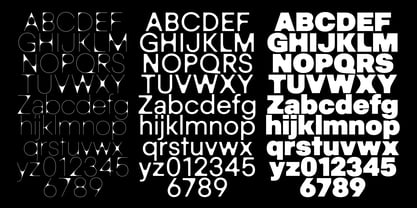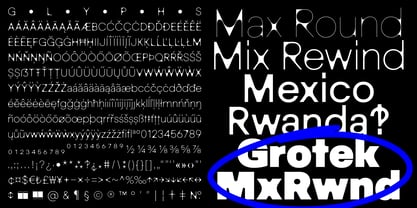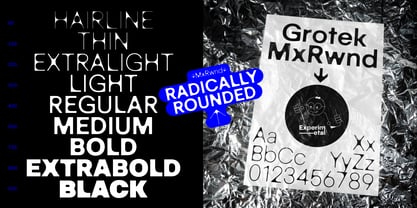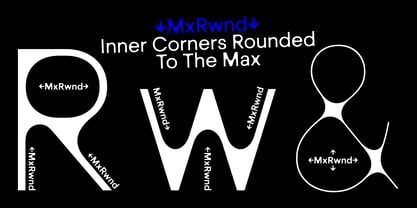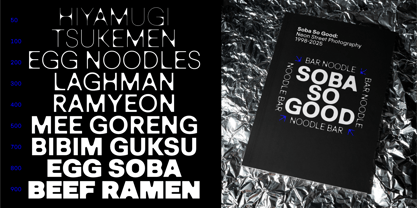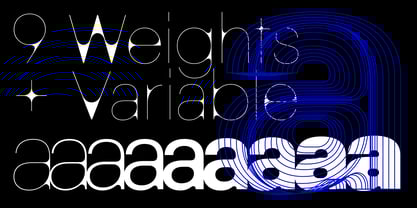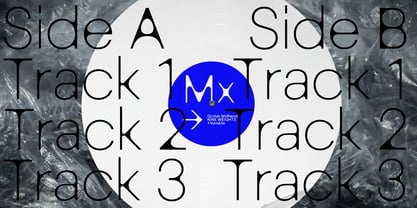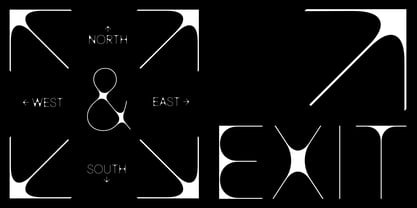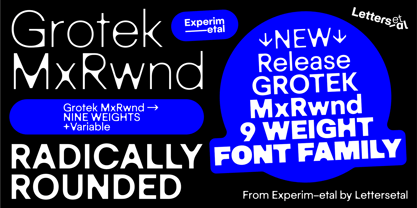
Grotek MxRwnd
by Experimetal by Lettersetal
The Grotek MxRwnd Font Family was designed by Matt Burvill and published by Experimetal by Lettersetal. Grotek MxRwnd contains 10 styles and family package options. More about this family
This rule breaker turns the idea of a rounded font on its head:
Normally when rounding a font, we are interested in rounding over the outside corners, creating a softer look. But here I have rounded only the inside corners, this creates unusual texture especially in lighter weights where a tension between inside and outer edges is made apparent. It gives the overall impression of a blur but with contrasting sharp outer edges that give a very sharply defined and intentional impression. This rule breaker turns the idea of a rounded font on its head; use it for branding that trendy new food truck or spicy noodle house your friend said they will open one day.
Experimetal by Lettersetal brings you fonts that push the boundaries of type design. Led by Lettersetal's head boffin, we transform, transmute, and alchemise Lettersetal's fonts into New Experimental Variable Fonts. Expect fonts defy tradition, some conceptual, some unpredictable, all designed to inspire and reshape your approach to typography. Step into the lab and take a look around!